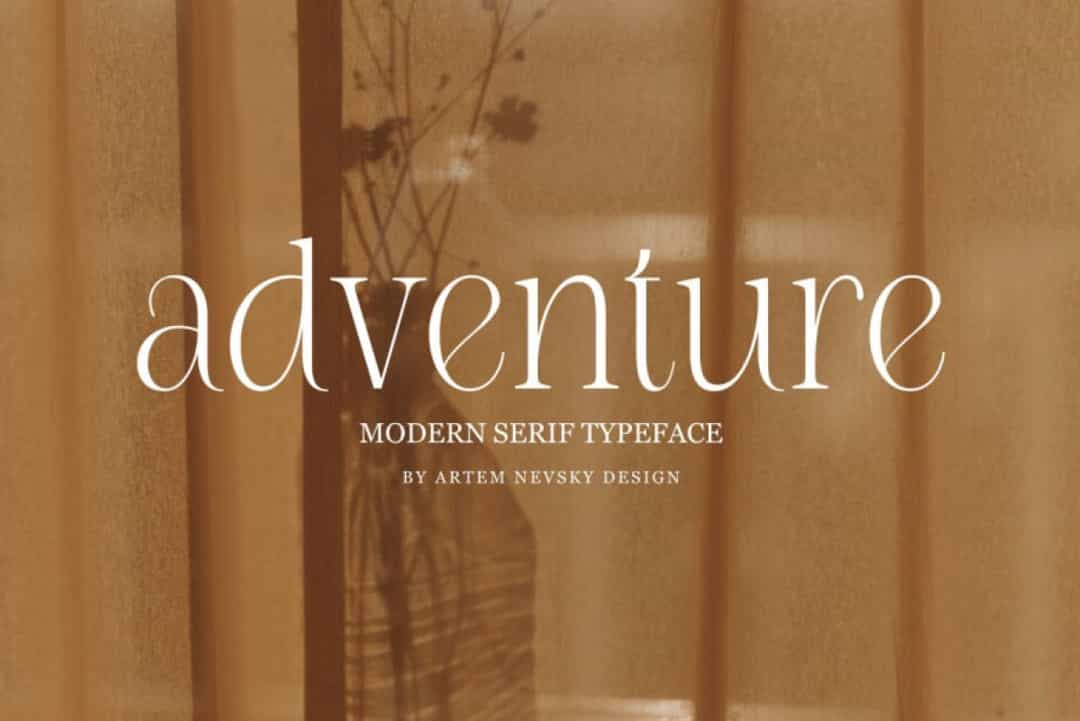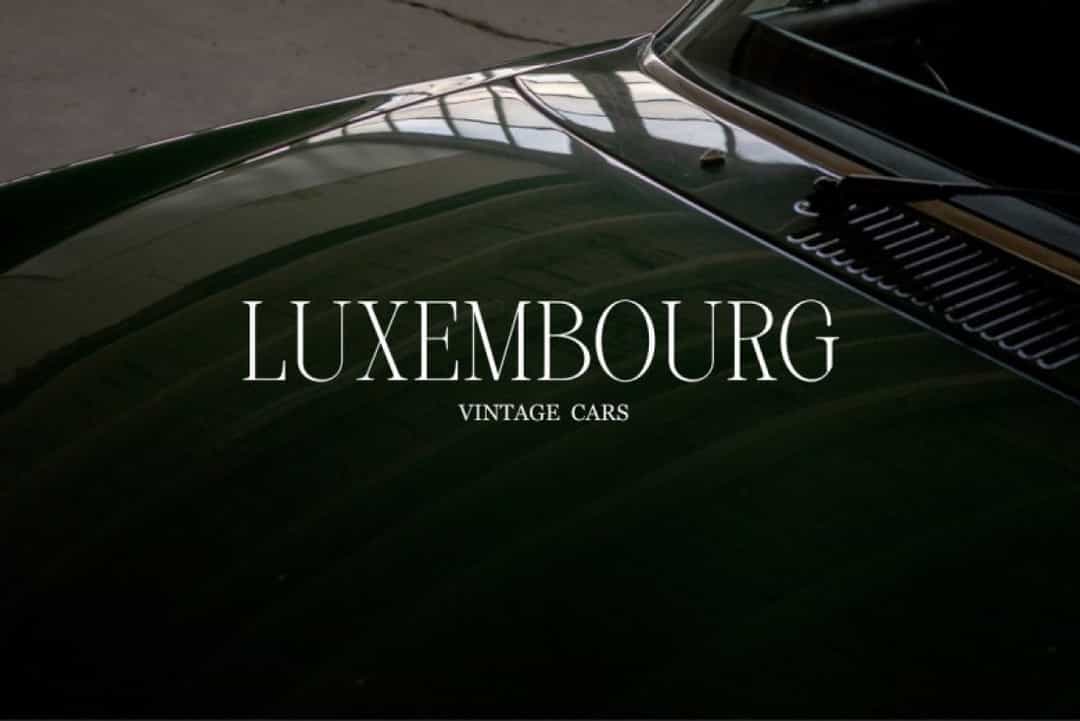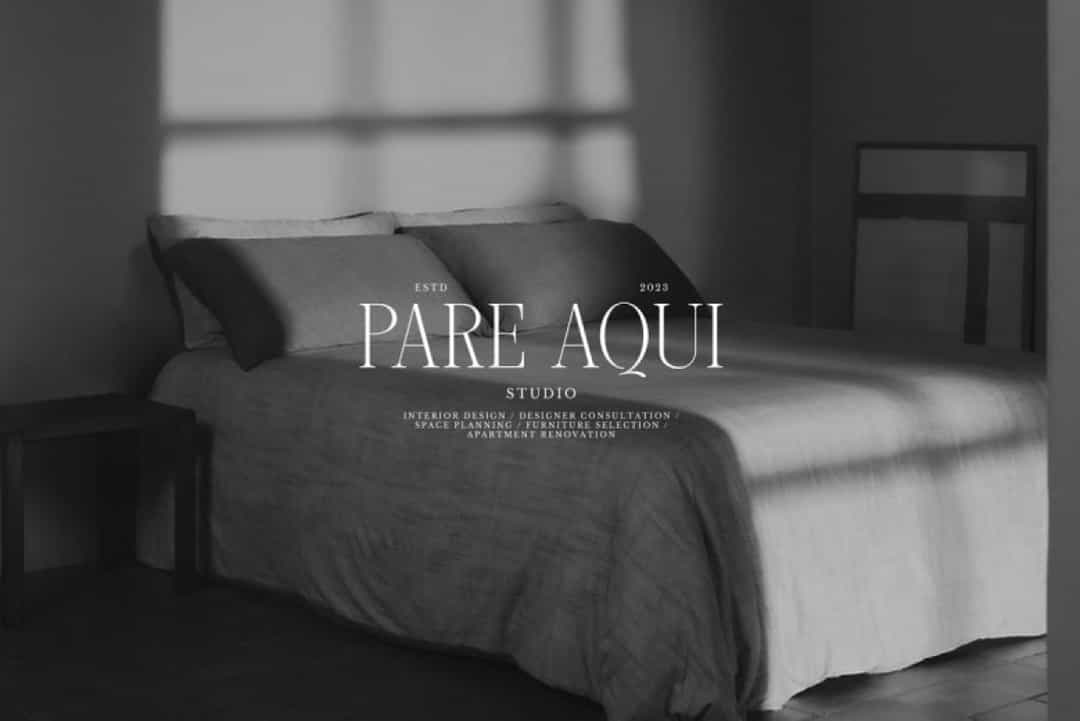
NT Adventure is an elegant serif typeface from yesteryear that should be included in your collection and used on high-end design projects. Perfect for packaging designs, logos editorials and much more NT Adventure offers classy elegance for creating elegant yet refined designs such as packaging or logos editorials.